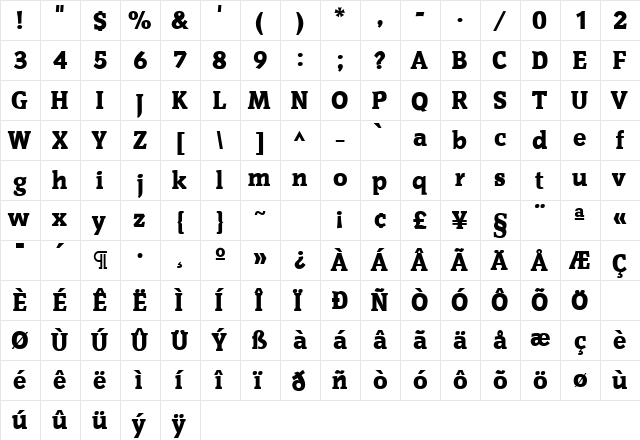
Commons Regular
Design Context for Commons Typeface
Commons offers clean, dependable letterforms without strong stylistic allegiance, making it a practical choice for designers who need flexibility.
Pro Tip: Use Commons in both headline and body roles to test its range before committing to a single application.